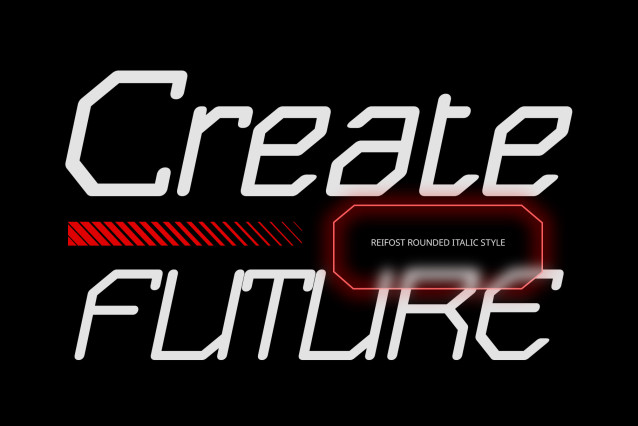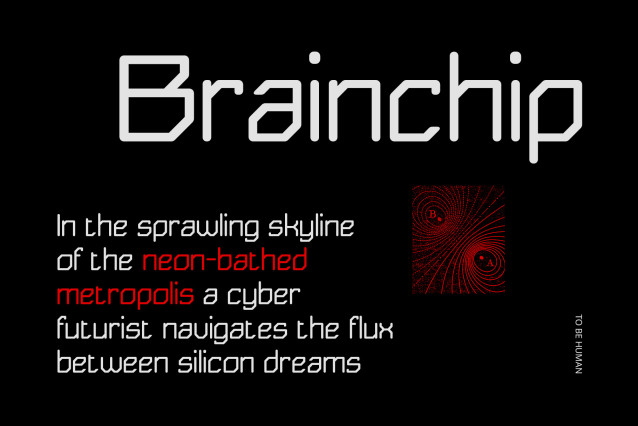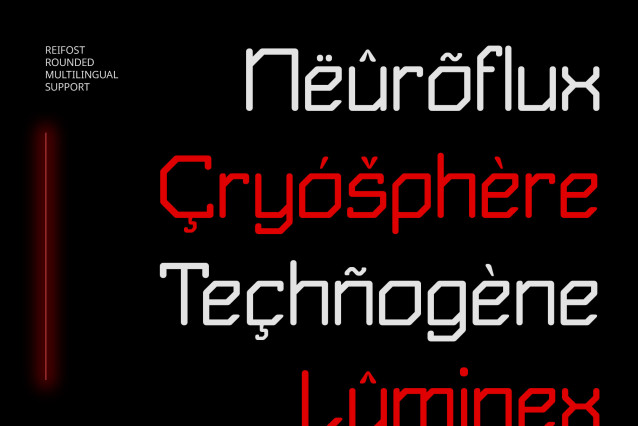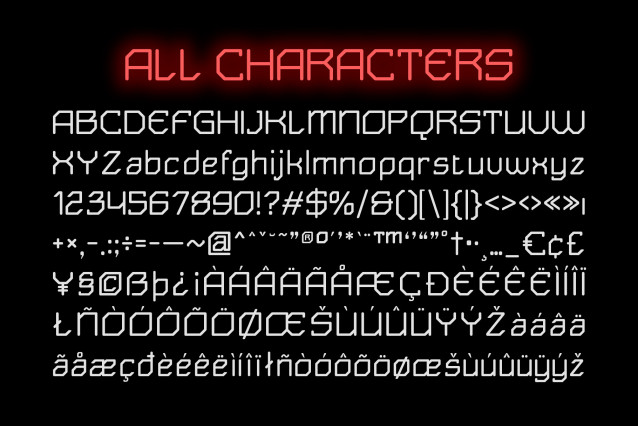
Reifost Rounded Font
Reifost Rounded Font – Sleek Tech Meets Soft Form
Futuristic Aesthetic with Rounded Elegance
ReifostRounded is a modern display font that merges techno-futuristic design with clean, smooth, and rounded letterforms. The font captures the essence of digital innovation while introducing a soft, human-centered edge, making it ideal for tech-forward projects with a friendly tone.